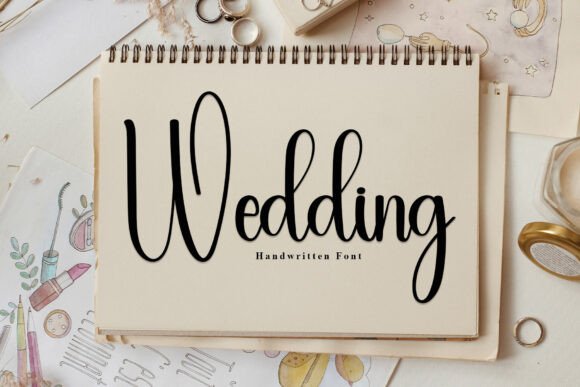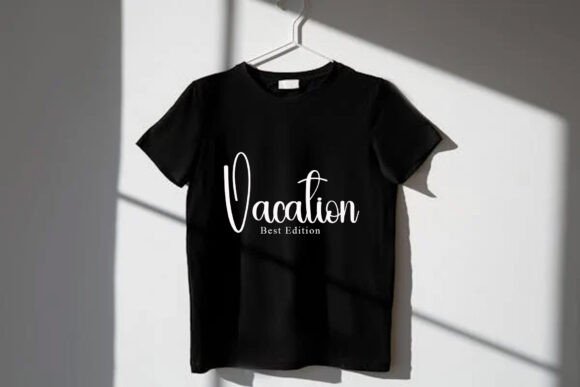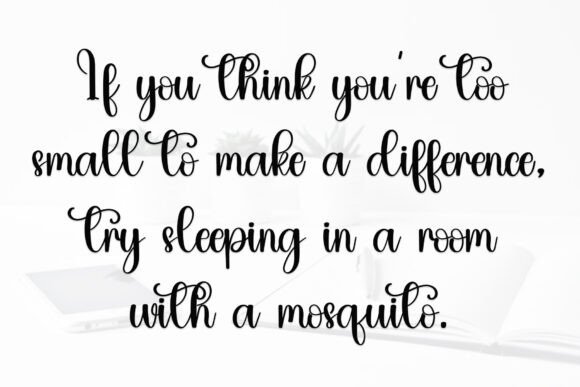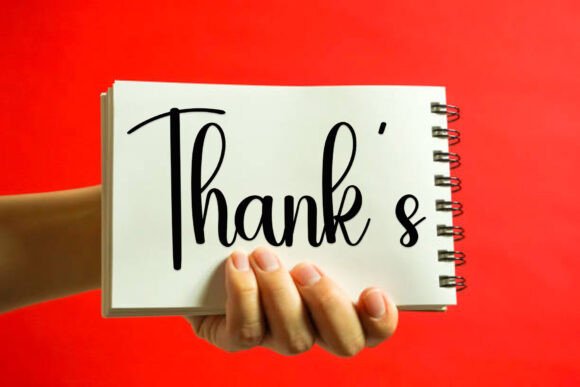
Creative Valentine Font: The Perfect Addition to Your Design Arsenal
Are you a designer or crafter looking for a unique and elegant font to add a touch of sweetness to your projects? Look no further than the Creative Valentine Font. This beautiful, handwritten font is perfect for creating stunning letterheads, titles, and stationery that will make your work stand out from the crowd.
What is Creative Valentine Font?
Creative Valentine is an elegant and dainty handwritten font that features sweet and delicate swashes. This original look is sure to appeal to a wide range of crafty ideas, from letterheads and titles, to stationery and more. The font’s delicate and feminine design makes it perfect for creating beautiful and eye-catching designs that are sure to impress.
Key Features of Creative Valentine Font
- Elegant and Dainty Design: The Creative Valentine Font features an elegant and dainty design that is perfect for creating beautiful and sophisticated designs.
- Sweet and Delicate Swashes: The font’s sweet and delicate swashes add a touch of whimsy and romance to any design.
- Handwritten Style: The font’s handwritten style gives it a personal and unique touch that is sure to make your designs stand out.
- Versatile: The Creative Valentine Font is versatile and can be used for a wide range of design projects, from letterheads and titles, to stationery and more.
The Creative Valentine Font is perfect for designers and crafters who are looking for a unique and elegant font to add to their design arsenal. Whether you’re creating beautiful letterheads, titles, or stationery, this font is sure to impress. Its delicate and feminine design makes it perfect for creating stunning designs that are sure to stand out from the crowd.
How to Use Creative Valentine Font
- Letterheads: Create beautiful and elegant letterheads that are sure to impress.
- Titles: Add a touch of sweetness and elegance to your titles with the Creative Valentine Font.
- Stationery: Create stunning stationery that is sure to stand out from the crowd.
- Wedding Designs: The font’s romantic and elegant design makes it perfect for creating beautiful wedding designs.
Why Choose Creative Valentine Font?
There are many reasons why you should choose the Creative Valentine Font for your design projects. Here are just a few:
- Unique and Elegant Design: The font’s unique and elegant design makes it perfect for creating stunning designs that are sure to stand out.
- Versatile: The font is versatile and can be used for a wide range of design projects.
- Perfect for Designers and Crafters: The font is perfect for designers and crafters who are looking for a unique and elegant font to add to their design arsenal.
In conclusion, the Creative Valentine Font is a beautiful and elegant font that is perfect for designers and crafters who are looking for a unique and elegant font to add to their design arsenal. Its delicate and feminine design makes it perfect for creating stunning designs that are sure to stand out from the crowd. With its sweet and delicate swashes, handwritten style, and versatile design, this font is sure to impress.